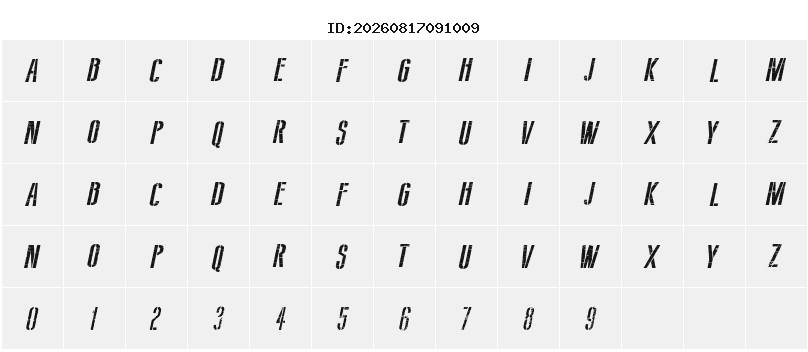
• Font Name: Soviet Style
• Font Style: Italique
• Font ID: Soviet Style Italic:Version 1.00
• Full Font Name: Soviet Style Italic
• Version: Version 1.00 June 20, 2013, initial release
• PostScript Name: SovietStyle-Italic
• Designer: Galdino Otten
Soviet Style.ttf is a modern, elegant sans-serif font designed for ultimate readability and visual harmony. Perfect for branding, headlines, web design, and print materials.